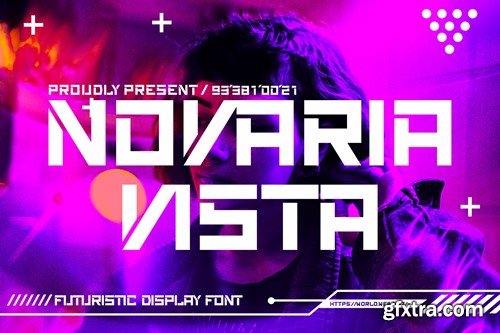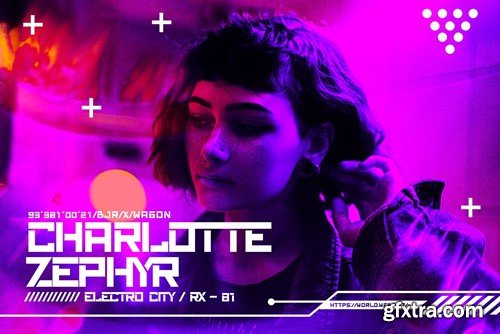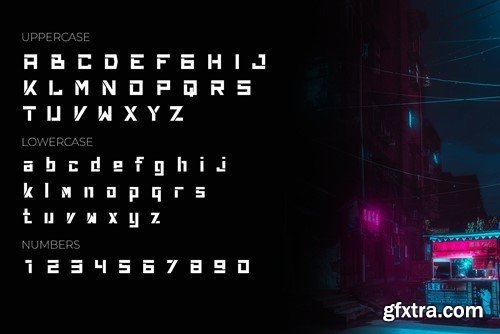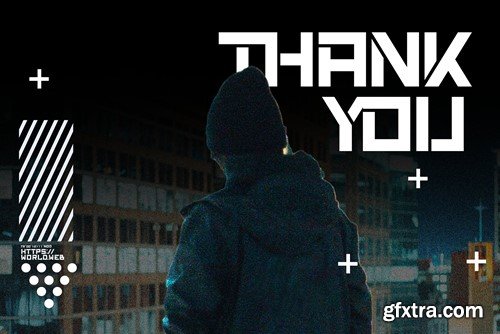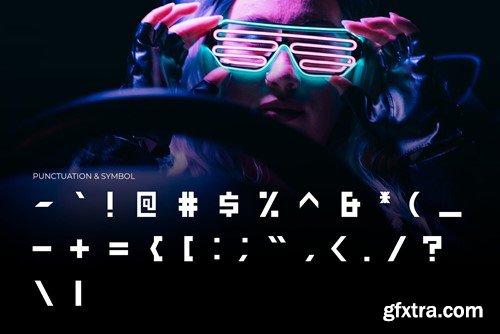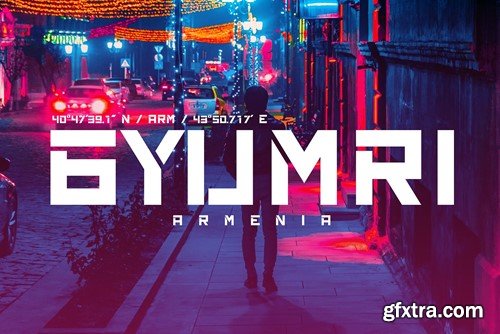
诺瓦里亚视界 - 智能显示字体 RRZKBT6
Novaria Vista is a futuristic display font that propels your designs into a world of innovation and technology. With its sleek, avant-garde lettering, it encapsulates the essence of the future, making it an excellent choice for projects that require a forward-thinking, high-tech, and cutting-edge style. Whether used in sci-fi designs, tech branding, or any project aiming to communicate a sense of futuristic sophistication, Novaria Vista adds a dynamic and visionary touch to your typography, taking your text to new horizons of futuristic aesthetics. File Included: Features: That's it! If you have any questions don't hesitate to ask! Stay Classy!